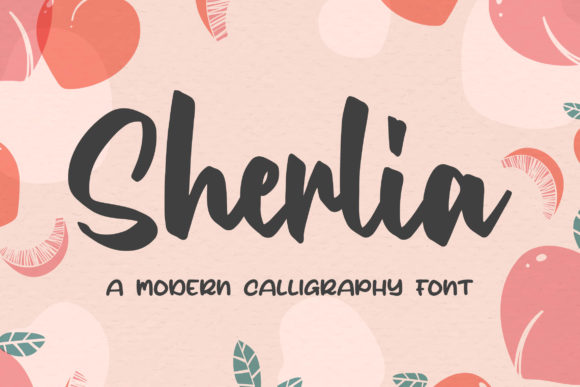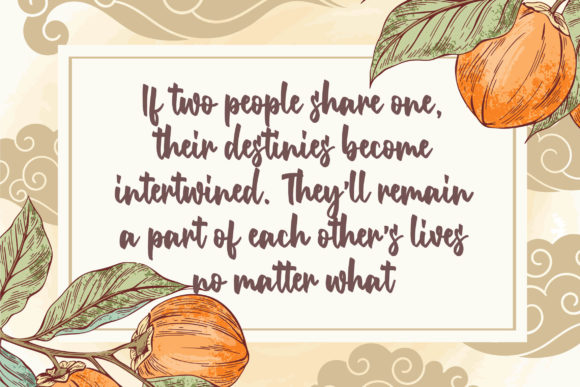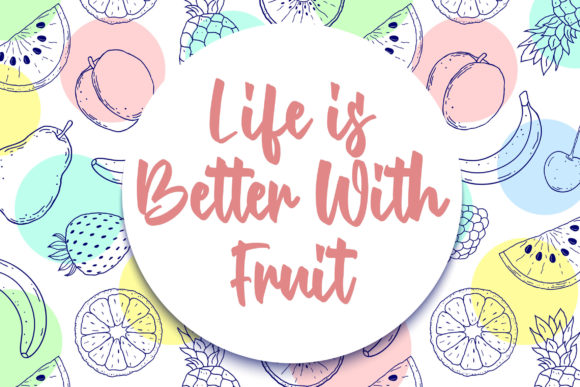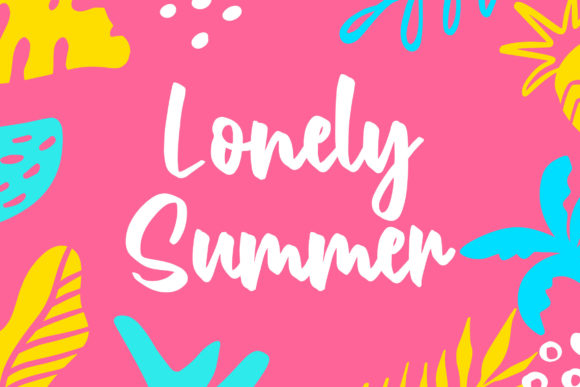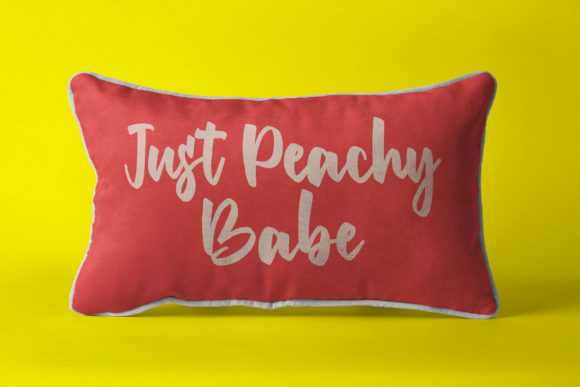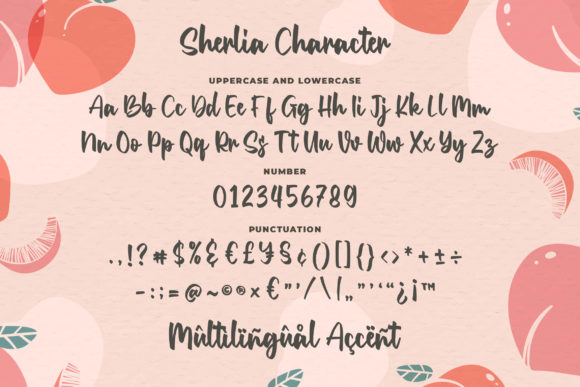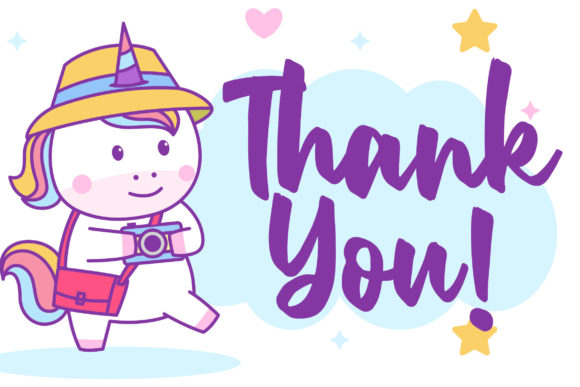
Sherlia Font
About Sherlia Font
Sherlia is a cute and casual handwritten font with an incredibly friendly feel. Get inspired by its authentic feel and use it to create gorgeous wedding invitations, beautiful stationary art, eye-catching social media posts, and cute greeting cards.